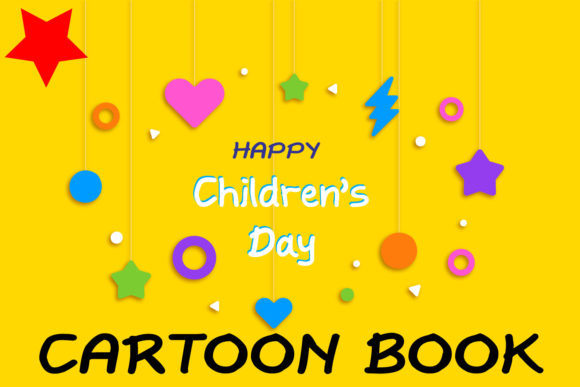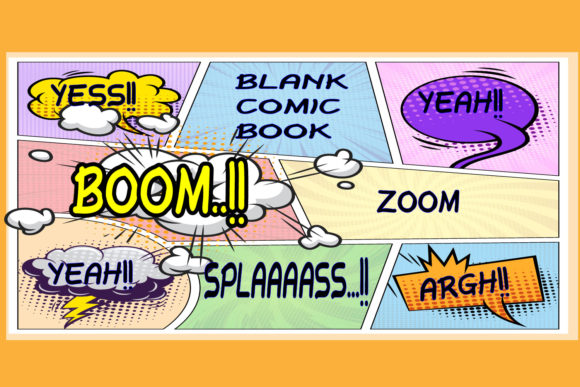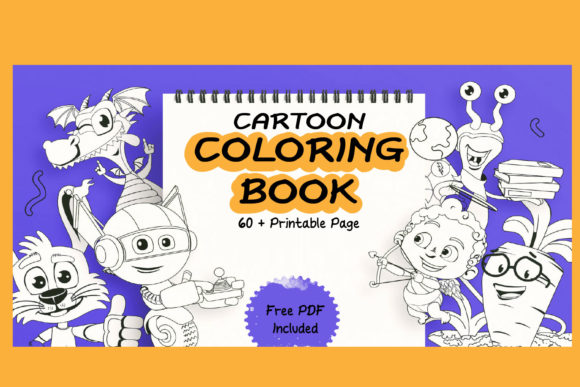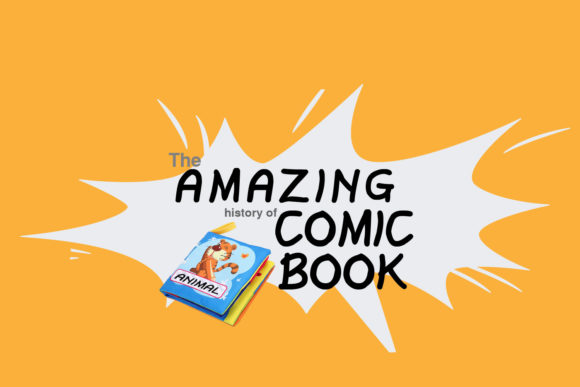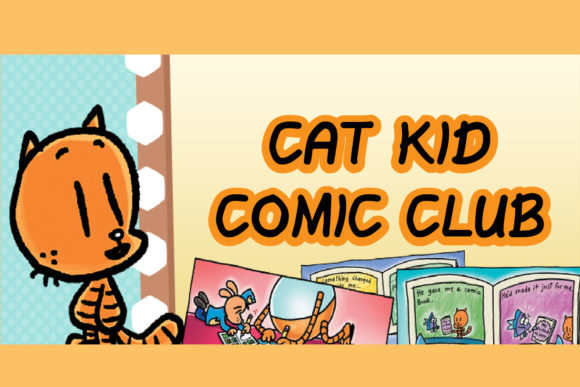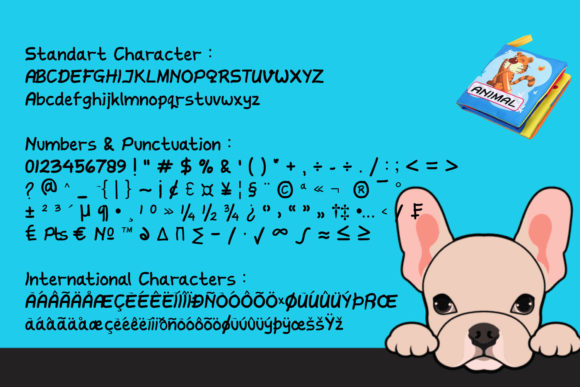
Introduction to Cartoon Book Font
Have you ever stared at a blank page, waiting for the perfect font to bring your creative project to life? We’ve all been there, struggling to find that elusive spark that sets our designs apart. But what if I told you that there’s a font so unique, so versatile, that it could elevate your entire creative process? Enter the Cartoon Book Font – a game-changing display font that’s about to become your new best friend.
This stunning font is a treasure trove of creative possibilities, designed to add a touch of whimsy and personality to any design. With its transparent background and high-quality design, it’s the perfect resource for designers looking to take their work to the next level. And the best part? You can download it for free, making it an invaluable addition to your design toolkit.
Whether you’re a seasoned pro or just starting out, the Cartoon Book Font is an essential design resource that’s sure to inspire your next creative project. So why settle for ordinary when you can have extraordinary? Dive into the world of Cartoon Book Font and discover a whole new world of design possibilities.
Key Features of Cartoon Book Font
• Unique, hand-drawn design perfect for creative projects and illustrations.
• Supports a wide range of languages, making it a versatile design resource for various creative projects.
• High-quality design, ideal for book covers, posters, and other design materials requiring a creative and playful touch.
Honest Review: Cartoon Book Font
As a designer, I’ve had the opportunity to work with a wide range of fonts for various creative projects. The Cartoon Book Font is one such design resource that caught my attention. In this review, I’ll share my honest thoughts on this font.
• ✨ Unique and playful style that adds a touch of whimsy to any design
• ✨ High quality and crisp typography, making it suitable for both digital and print materials
• ⚠️ Limited character set, which might not be suitable for lengthy text-based projects
• ⚠️ Not ideal for formal or professional designs, as it may come across as too playful
In conclusion, the Cartoon Book Font is a great addition to any designer’s toolkit. Its unique style and high quality make it perfect for creative projects that require a playful touch. However, it’s essential to consider the limitations before using it for formal or text-heavy designs. Overall, I’d give it 4 out of 5 stars for its design value and usability.
How to Use Cartoon Book Font
Introduction to Cartoon Book Font
Cartoon Book Font is a high-quality design resource perfect for creative projects that require a playful and whimsical touch. This free download features a transparent background, making it easy to integrate into various designs.
Tips for Getting the Most Out of Cartoon Book Font
To get the most out of Cartoon Book Font, experiment with different font sizes, styles, and colors. Combine it with other design elements, such as illustrations or graphics, to create a unique and eye-catching design.
Common Use Cases for Cartoon Book Font
Cartoon Book Font is perfect for children’s book covers, party invitations, and other creative projects that require a playful and whimsical touch. It’s also great for social media graphics, blog posts, and other online content.